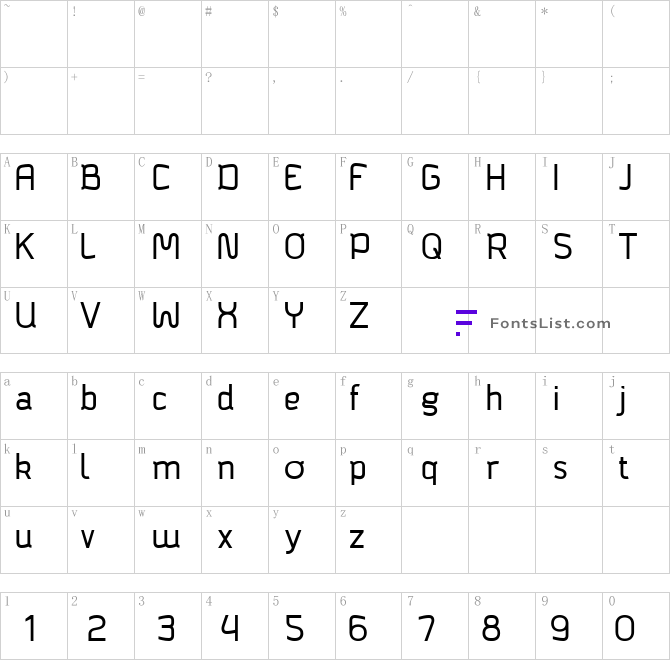
- Font Name:Bagadek
Bagadek.ttf is a very beautiful artistic font, Bagadek.ttf is widely used in the design and printing of various books and pictures,Bagadek.ttf has a strong visual impact,Bagadek.ttf is a commonly used font in newspapers, magazines and books, and is used in posters, e-commerce Poster design, store design, logo design, font design and other fields.Bagadek.